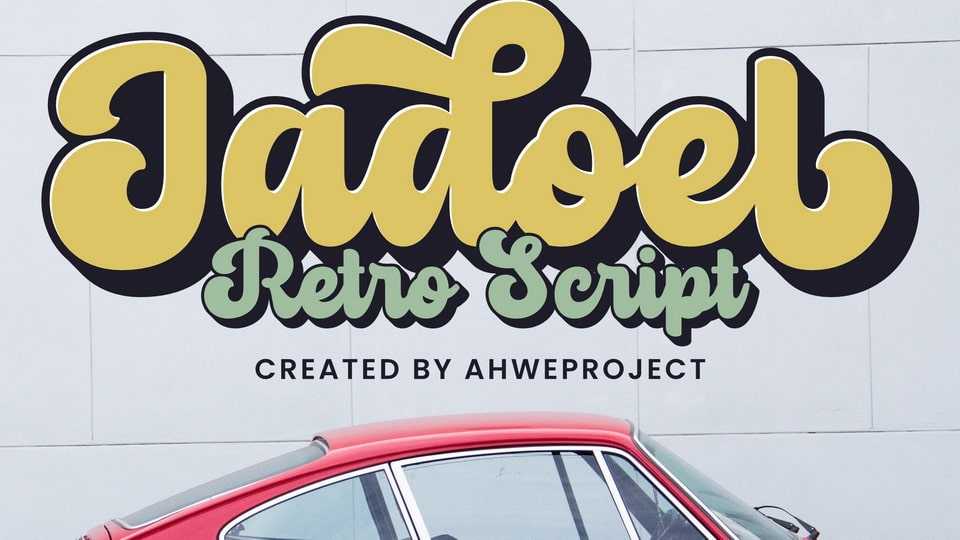
Download Jadoel font, a retro-inspired script display typeface meticulously crafted to elevate your designs. It seamlessly blends into your vintage-themed posters, decals, clothing articles, and social media graphics.